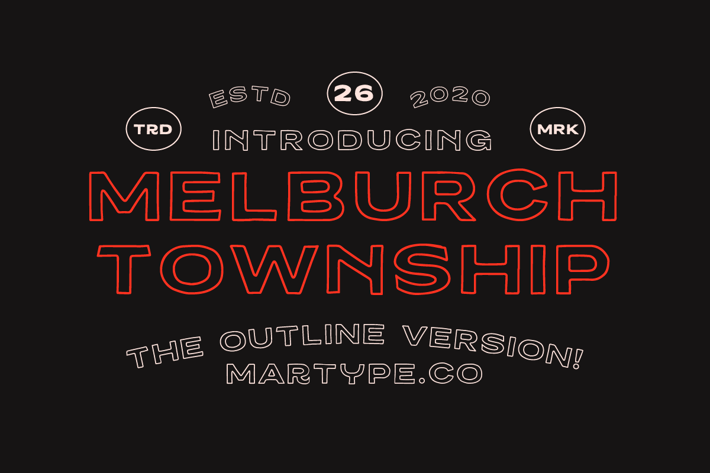
Melburch Typeface (Outline Version)
MartypeCo
Melburch Outline is a vintage line typeface inspired by handmade lettering this, typeface is ready to use and suitable retro design like for Logotype, Label, Sign Painting, Badges, Poster and etc.